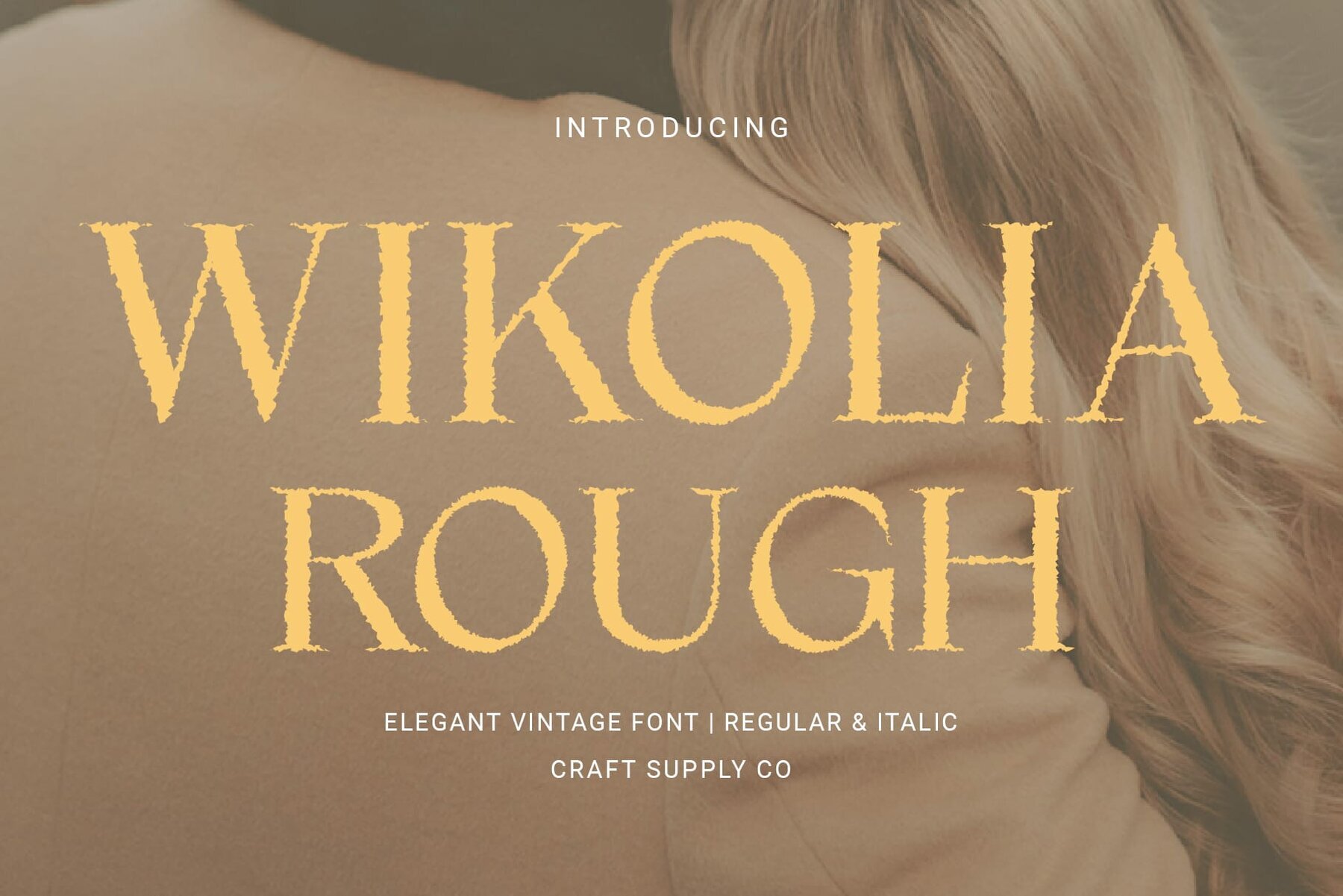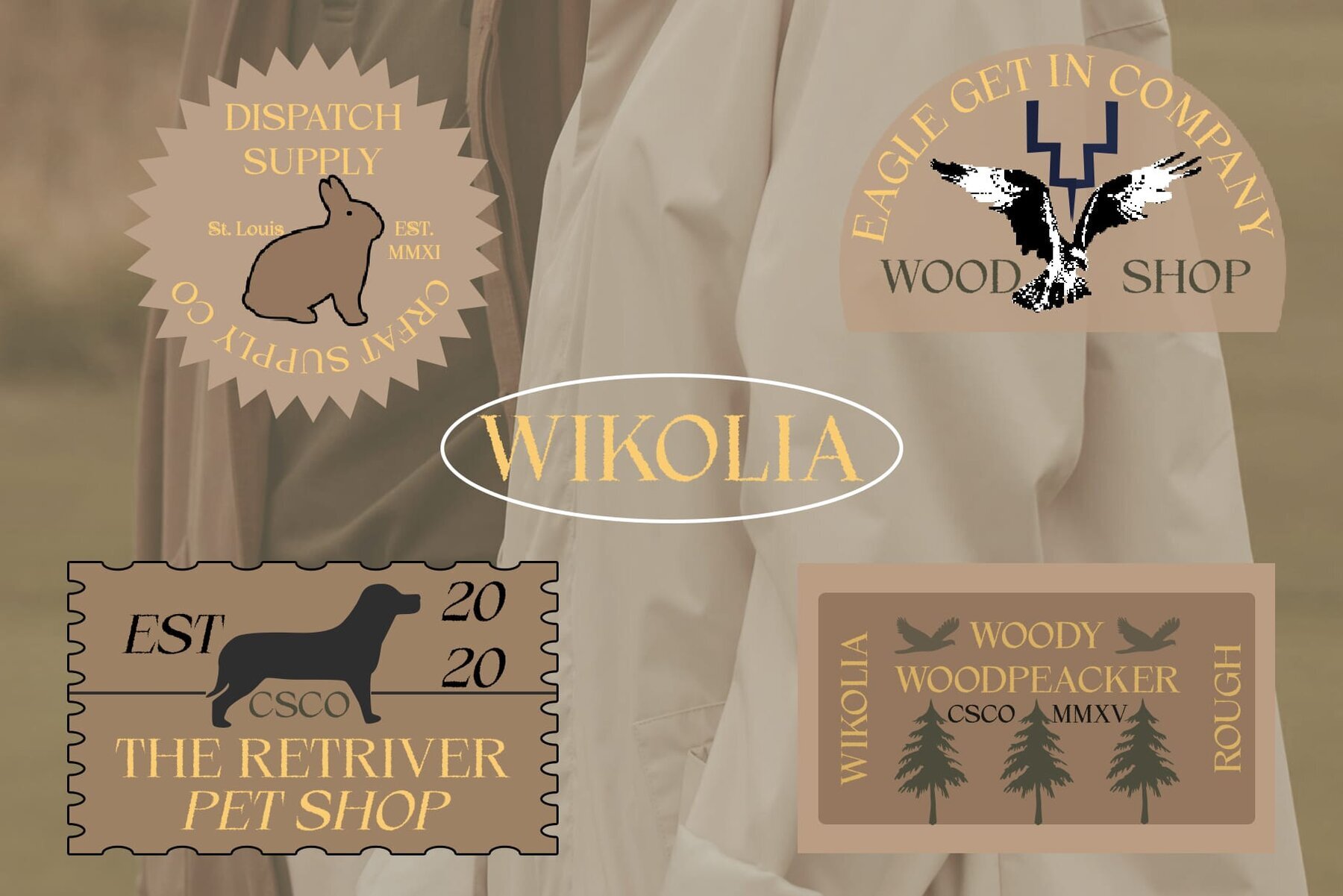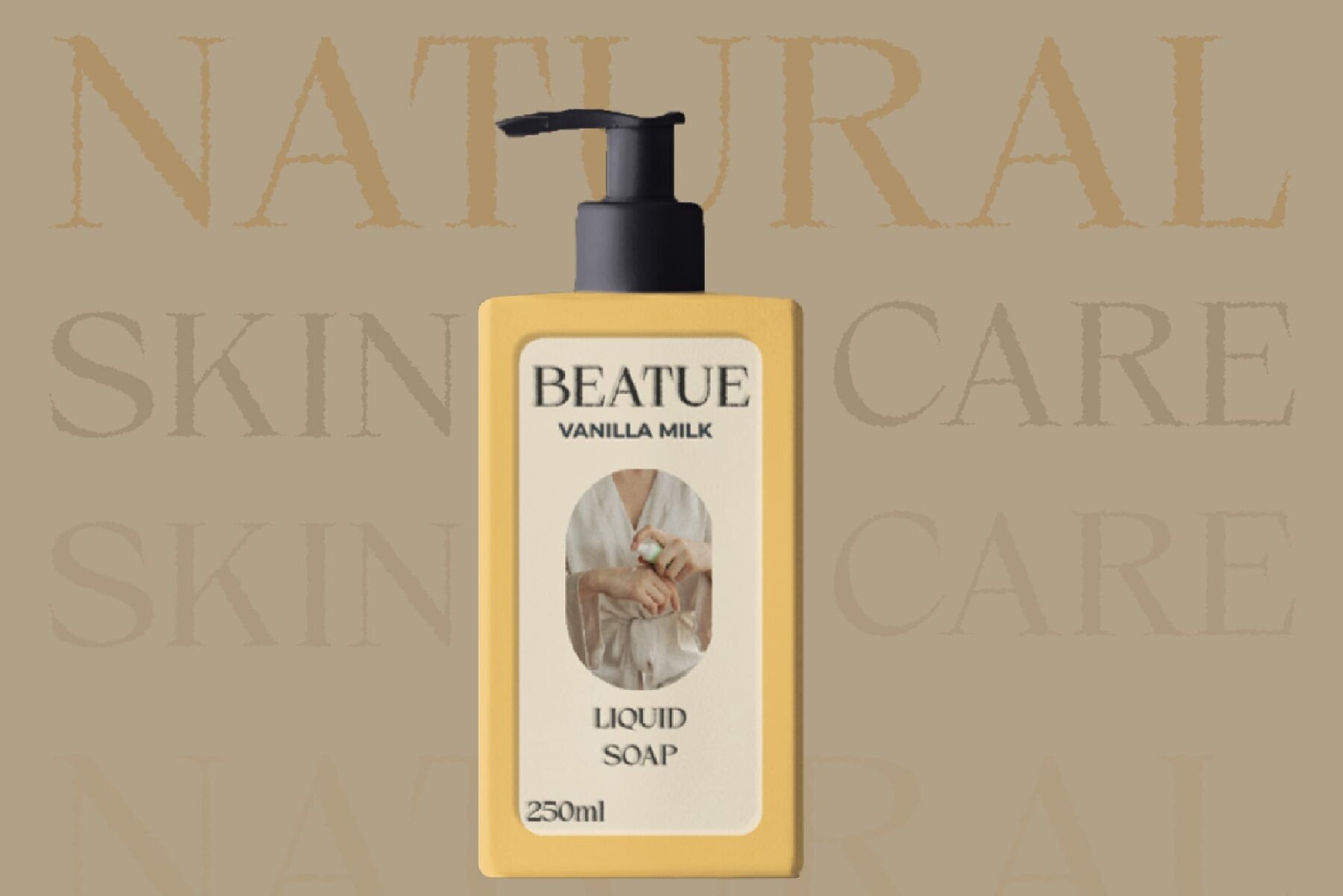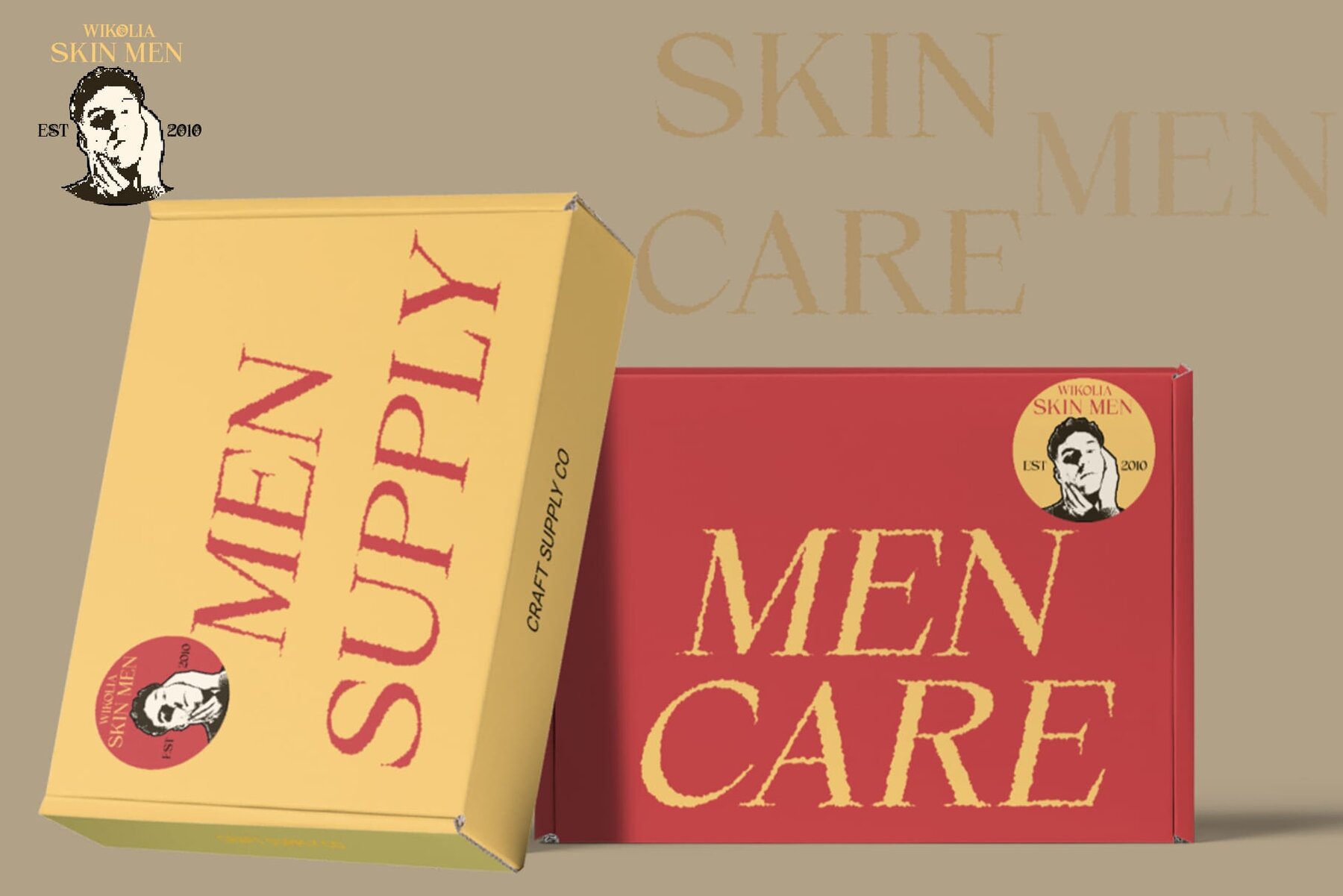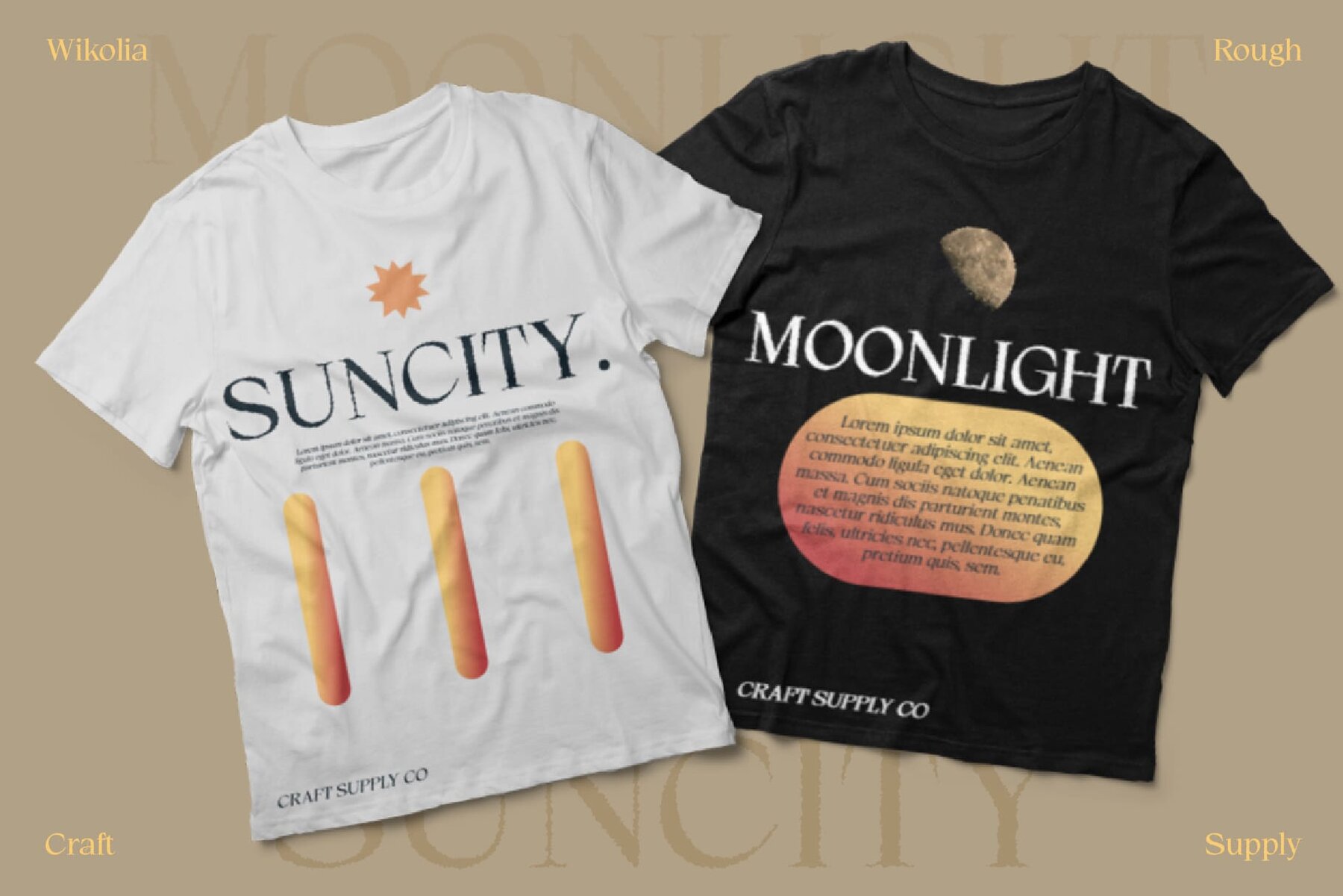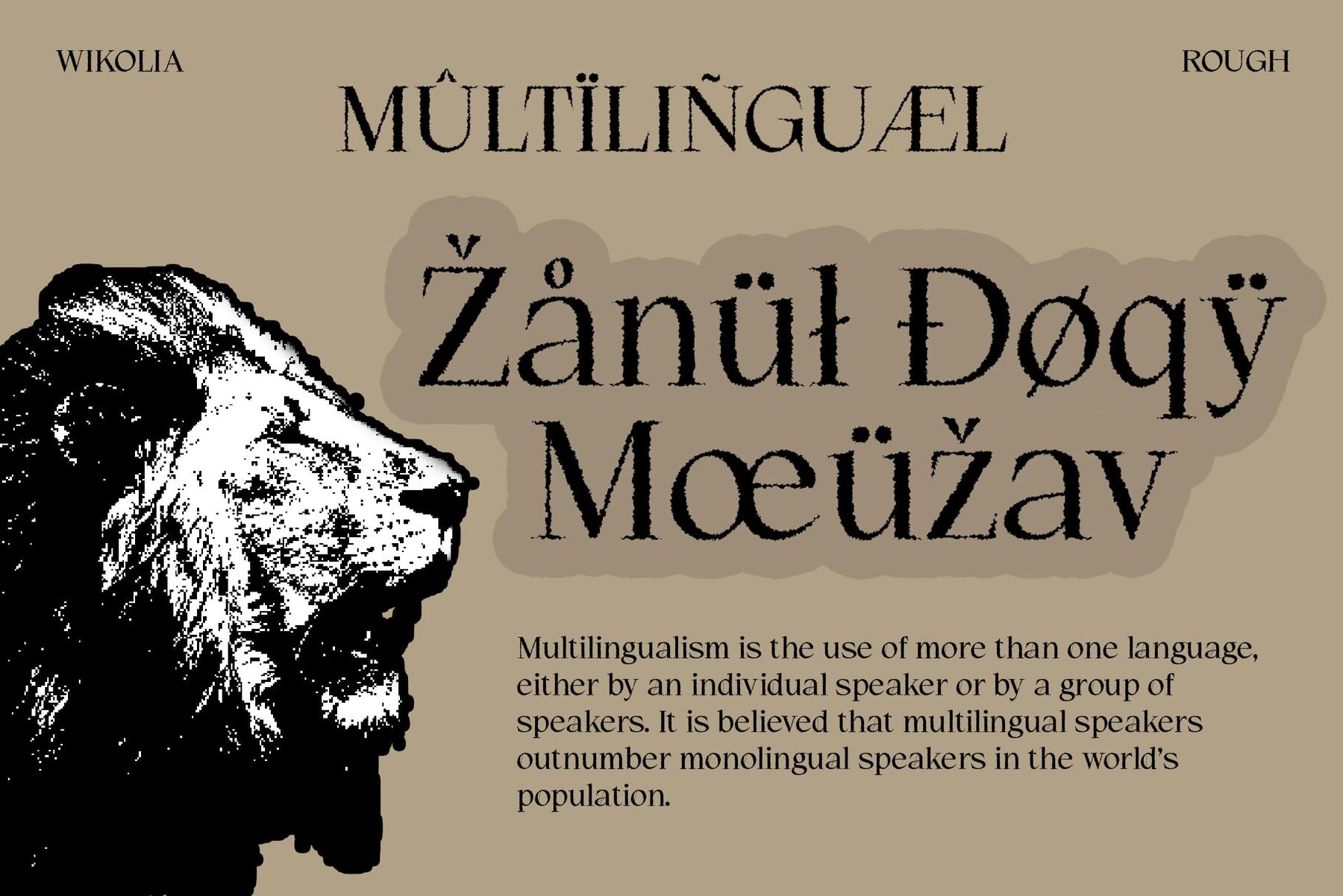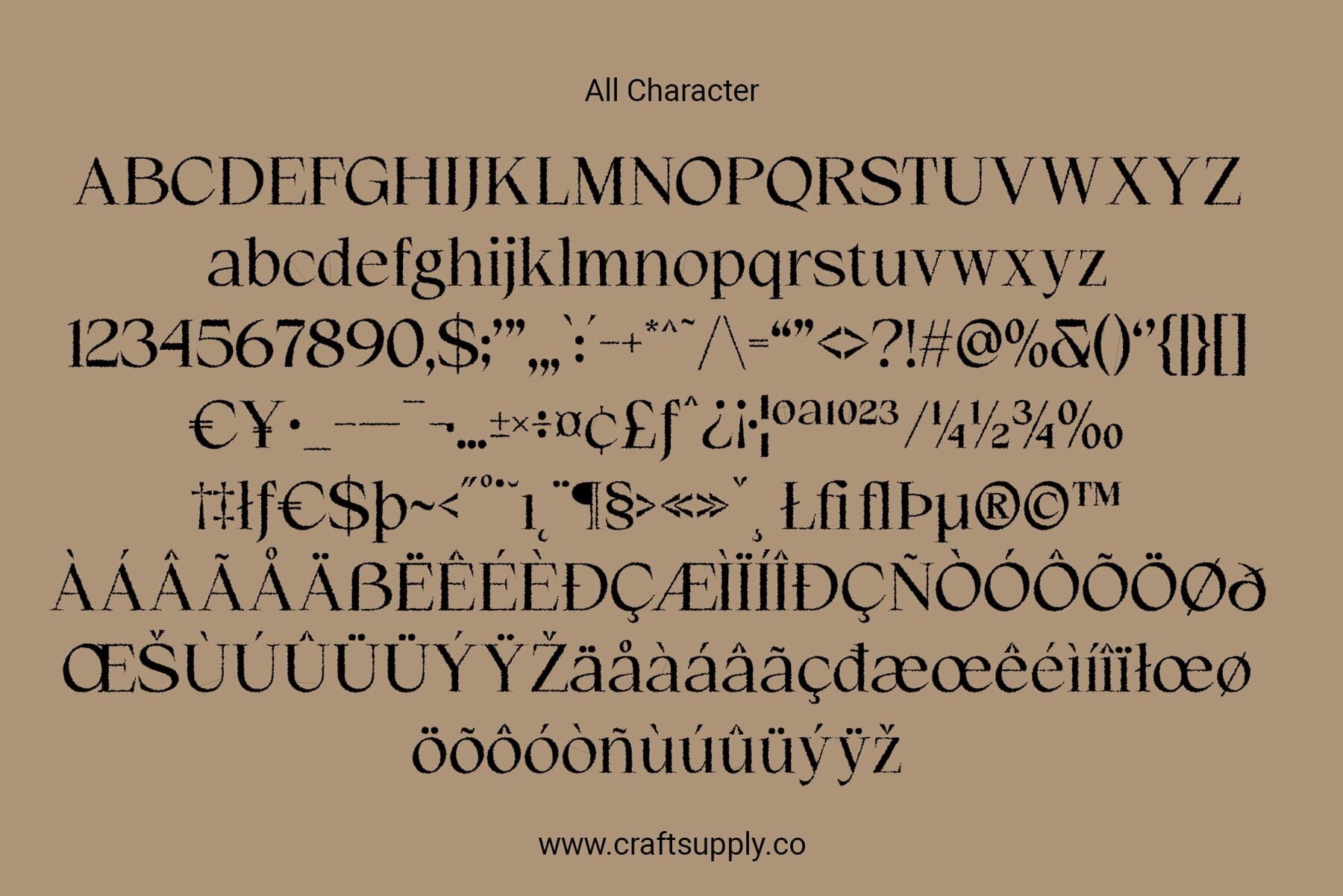
Wikolia Rough Font
Wikolia Rough by Craft Supply Co. offers a creative twist on traditional serif fonts. This unique typeface combines elegance and a distinct rough texture, making it ideal for projects that require a blend of sophistication and a tactile feel. The typeface features finely crafted serif characters that are both charming and full of personality. Its design is meticulously tailored to add a noticeable distinction to any textual content, enhancing the visual appeal of branding, editorial designs, and various creative projects. The standout feature of Wikolia Rough is its rough texture effect. This not only contributes to the visual depth but also injects a rustic, organic quality into the font. This texture makes Wikolia Rough particularly suited for brands looking to project a handcrafted, authentic image. Wikolia Rough excels in both digital and print mediums. Its robust character set ensures versatility, from eye-catching headlines and elegant packaging to interactive web elements and striking promotional materials.Wikolia Rough: Embracing Rough Elegance with Unique Serif Design